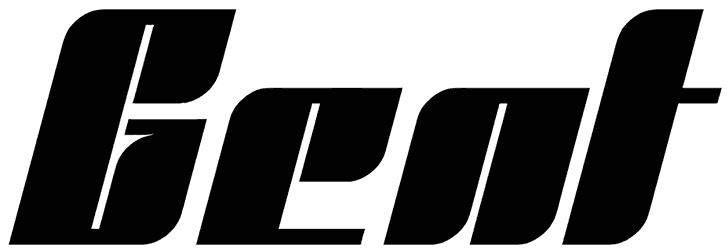
Gent Font
If you want an ultimate bold font and to add more versatility to your content, you should check out this techno font. The Gent font is wonderfully created with a combination of thick and thin letters. This racing and Y2K font can be a practical step in designing billboards, t-shirts, and all kinds of sports clothes to achieve outstanding results.
Gent is a free bold italic typeface designed by fnkfrsh. Gent typeface is perfect for big Bold Headlines and displays that need a slightly modern look